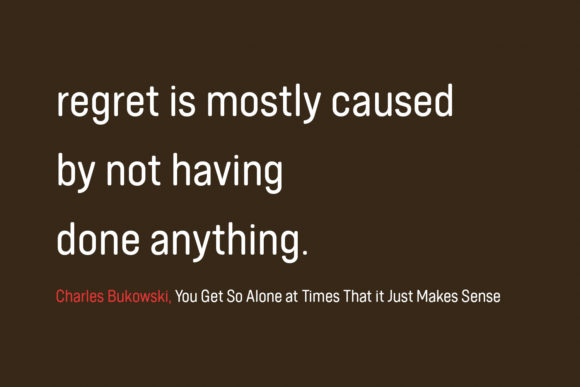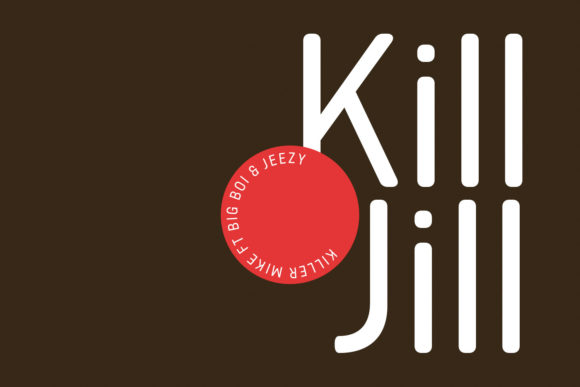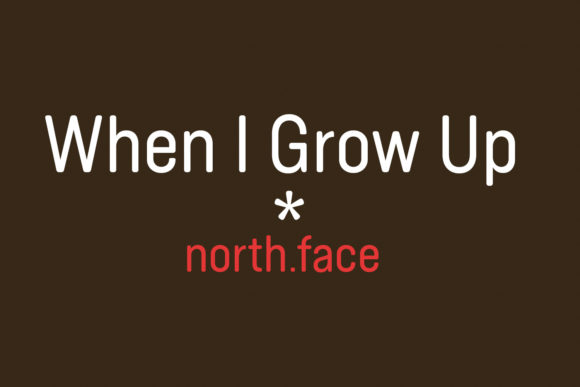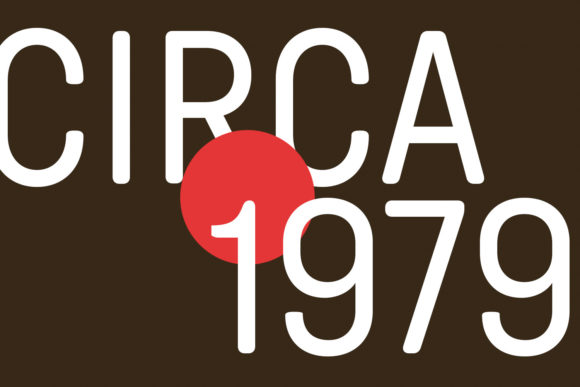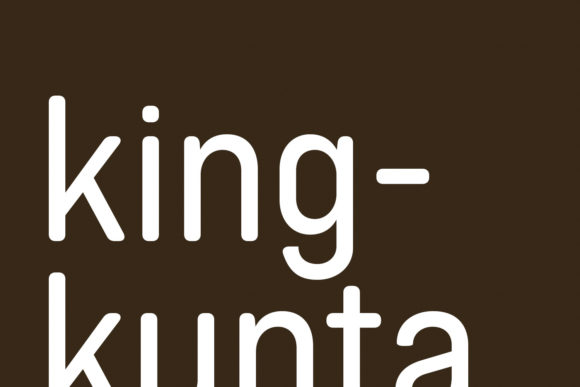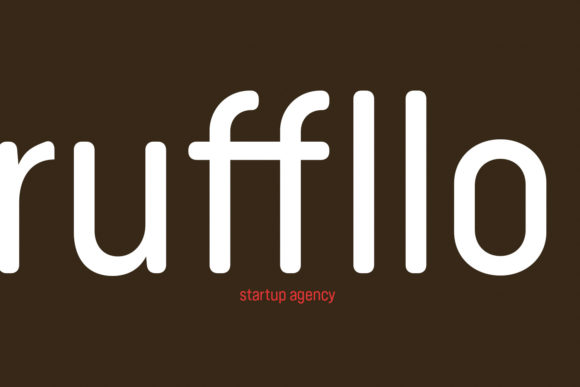
Introducing Colatera Font: Elevate Your Crafting Ideas with a Vintage Touch
Are you a designer, crafter, or DIY enthusiast looking for a font that can add a touch of vintage charm to your projects? Look no further than Colatera Font, a beautiful and versatile sans serif font that’s perfect for a wide range of crafting ideas. In this article, we’ll explore the features and benefits of Colatera Font, and show you how it can elevate your cards, branding, labels, and more.
What is Colatera Font?
Colatera Font is a vintage-styled sans serif font that’s designed to bring a touch of nostalgia and elegance to your projects. Its clean and neat lines make it highly legible, while its classic style ensures it will never go out of fashion. Whether you’re creating handmade cards, crafting labels, or developing a brand identity, Colatera Font is the perfect choice.
Key Features of Colatera Font
- Vintage style: Colatera Font has a unique vintage charm that’s perfect for crafters and designers who want to add a touch of nostalgia to their projects.
- Sans serif: The font’s clean and simple sans serif design makes it highly legible and versatile.
- Neat lines: Colatera Font’s neat lines ensure that your text will always look crisp and professional.
- Wide range of uses: From cards and labels to branding and more, Colatera Font is perfect for a wide range of crafting ideas.
How to Use Colatera Font
Colatera Font is incredibly easy to use, even if you’re not a professional designer. Here are a few ideas to get you started:
- Handmade cards: Add a touch of vintage charm to your handmade cards with Colatera Font.
- Branding: Use Colatera Font to develop a unique and memorable brand identity for your business.
- Labels: Create beautiful and functional labels for your products or crafts with Colatera Font.
- DIY projects: Add a touch of elegance to your DIY projects, such as scrapbooking, journaling, or crafting.
Benefits of Using Colatera Font
So why choose Colatera Font for your crafting ideas? Here are just a few benefits:
- Elegant and sophisticated: Colatera Font adds a touch of elegance and sophistication to any project.
- Highly legible: The font’s clean and simple design ensures that your text will always be easy to read.
- Versatile: Colatera Font is perfect for a wide range of crafting ideas, from cards and labels to branding and more.
- Vintage charm: The font’s vintage style adds a unique and charming touch to any project.
Tips and Tricks for Getting the Most Out of Colatera Font
Here are a few tips and tricks to help you get the most out of Colatera Font:
- Experiment with different sizes: Colatera Font looks great in a variety of sizes, from small and delicate to large and bold.
- Pair with other fonts: Try pairing Colatera Font with other fonts to create a unique and interesting look.
- Use in combination with images: Colatera Font looks great in combination with images, such as photographs or illustrations.
In conclusion, Colatera Font is a beautiful and versatile sans serif font that’s perfect for a wide range of crafting ideas. Its vintage style, clean lines, and high legibility make it the perfect choice for designers, crafters, and DIY enthusiasts. Whether you’re creating handmade cards, crafting labels, or developing a brand identity, Colatera Font is sure to elevate your projects and add a touch of elegance and sophistication.